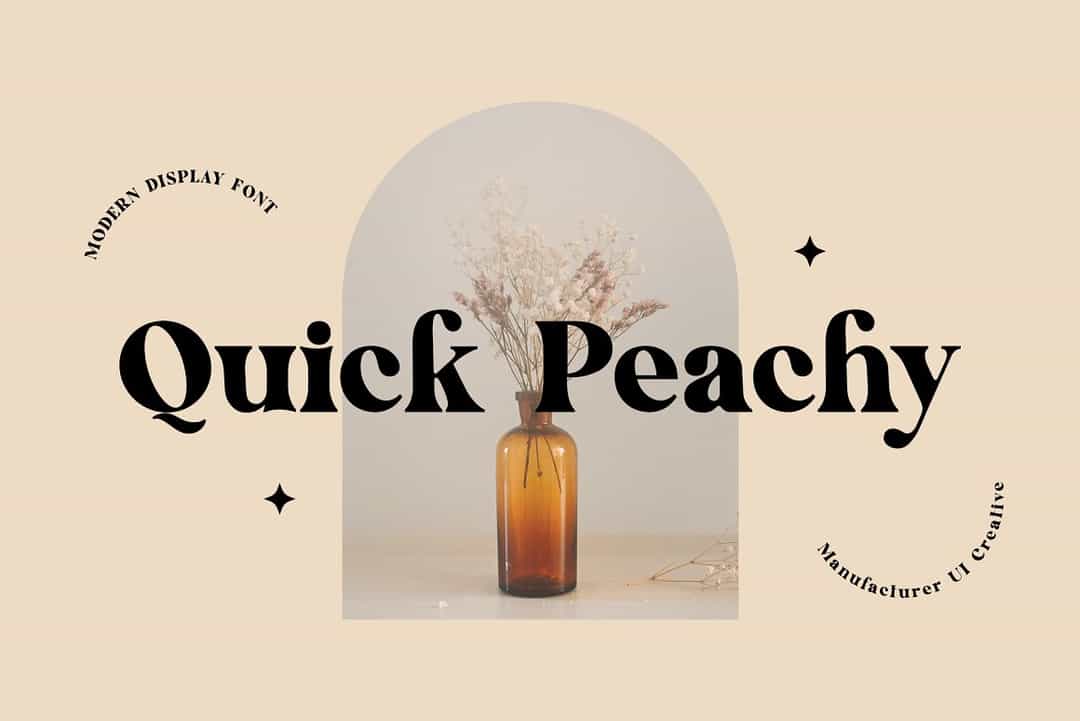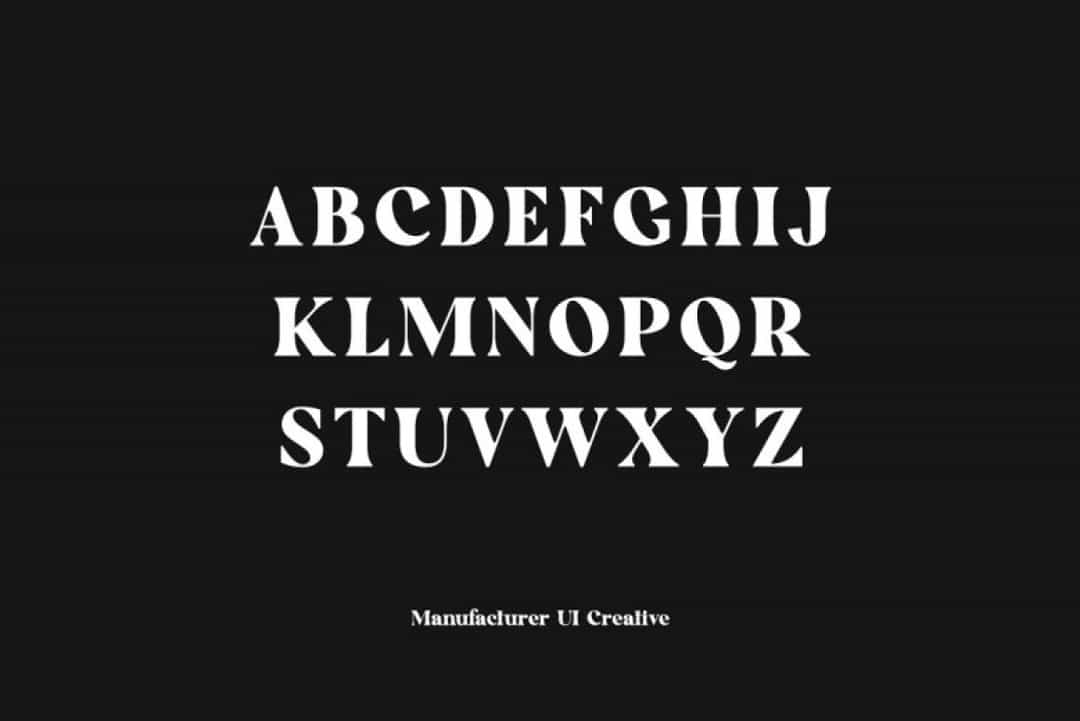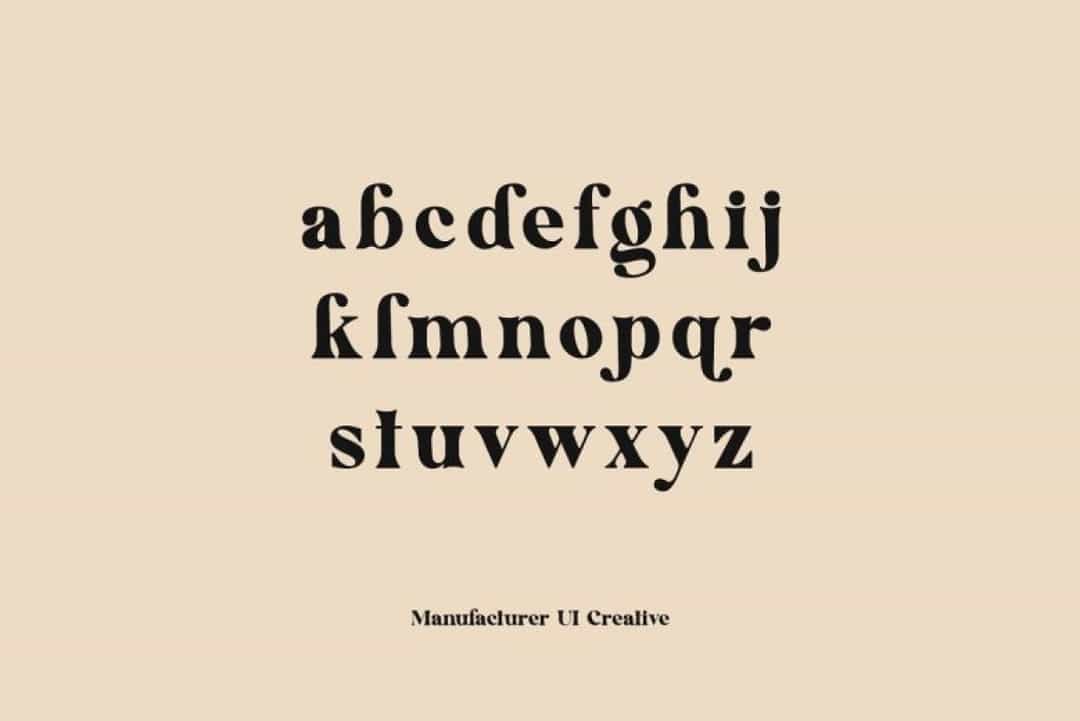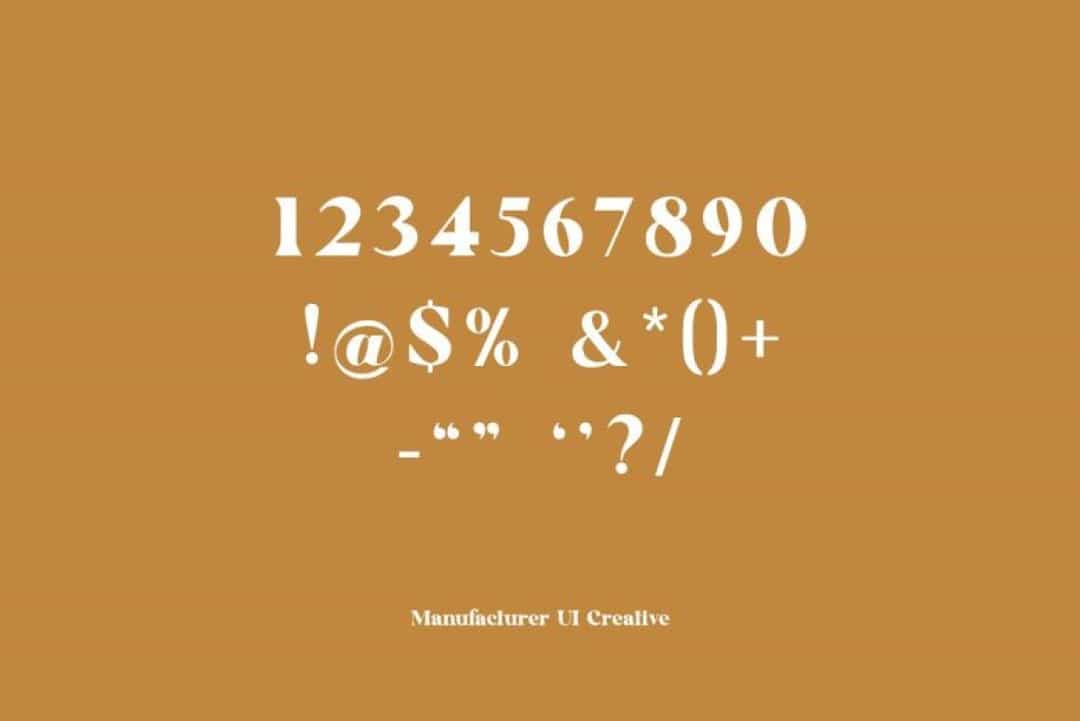
Quick Peachy Font is an elegant yet bold contemporary font designed by Marc Forster that’s contemporary yet bold, designed as a classic serif font and classy modern. Perfect for logo, stationery, signature wedding invites and typography quotes as well as book/magazine covers/headers/branding clothing packaging and branding purposes this font will fit seamlessly into many applications and projects.